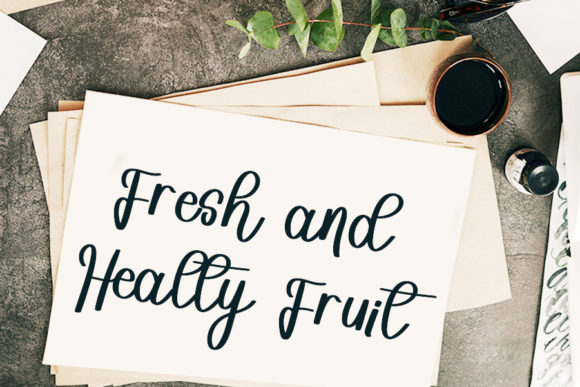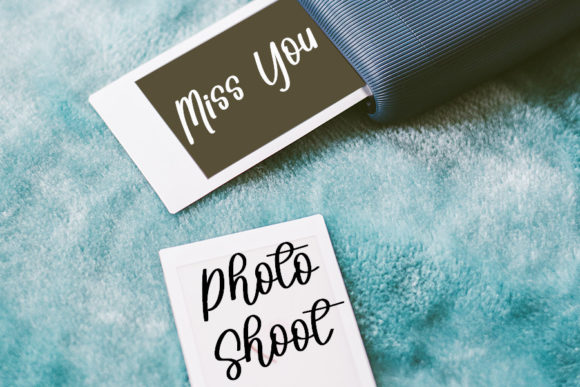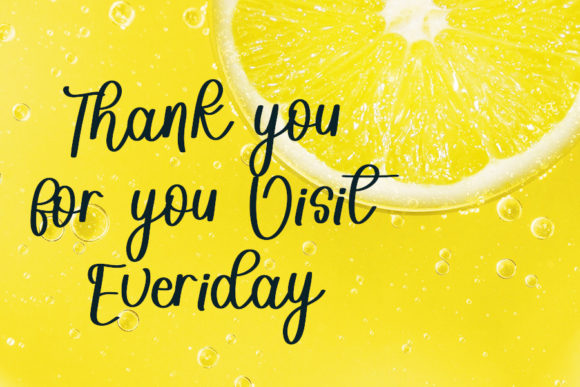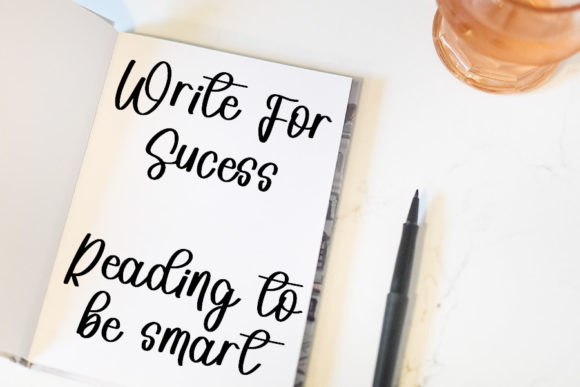
Lemonade Font
About Lemonade Font
Lemonade is a beautiful and chic handwritten font. It has beautiful and well balanced characters and as a result, it matches a wide pool of designs. Add it to your most creative ideas and notice how it makes them come alive!